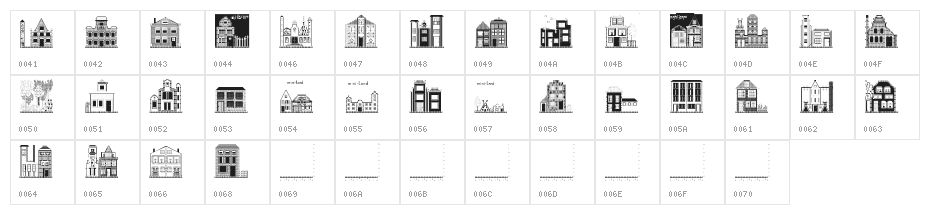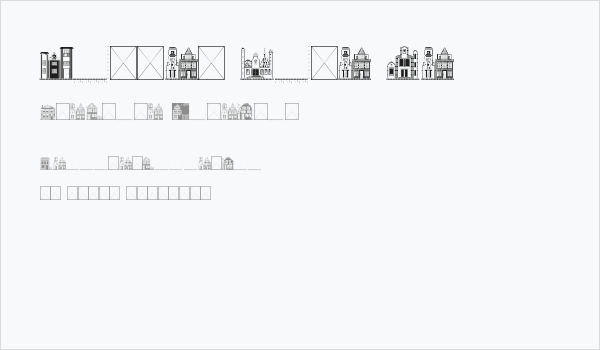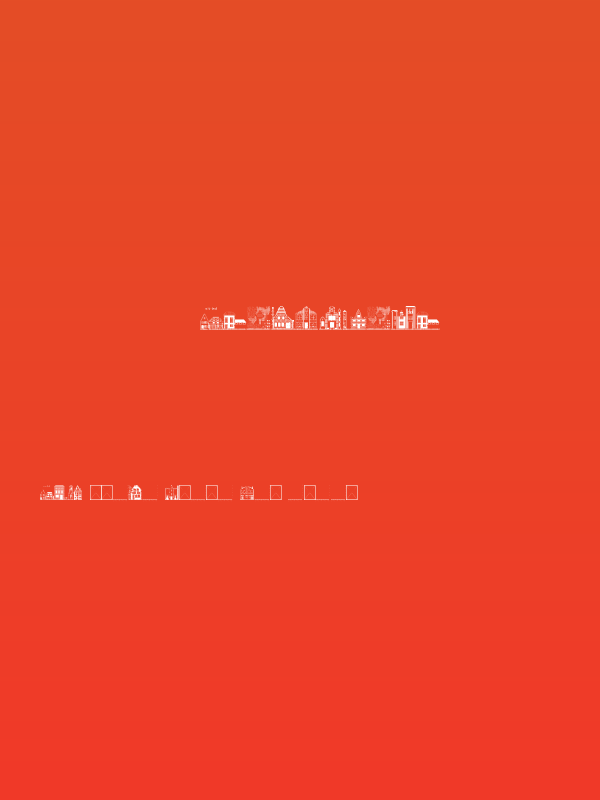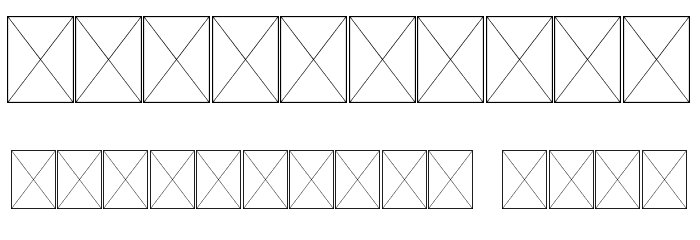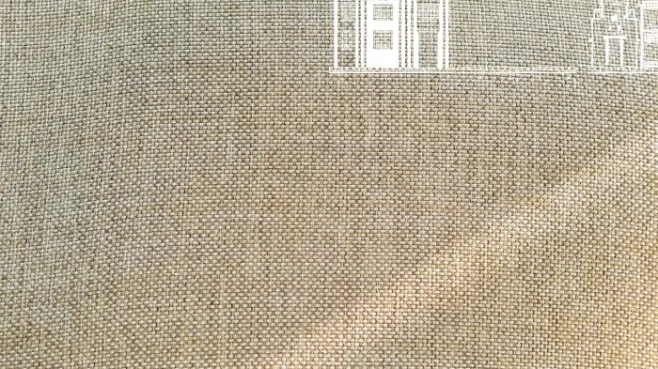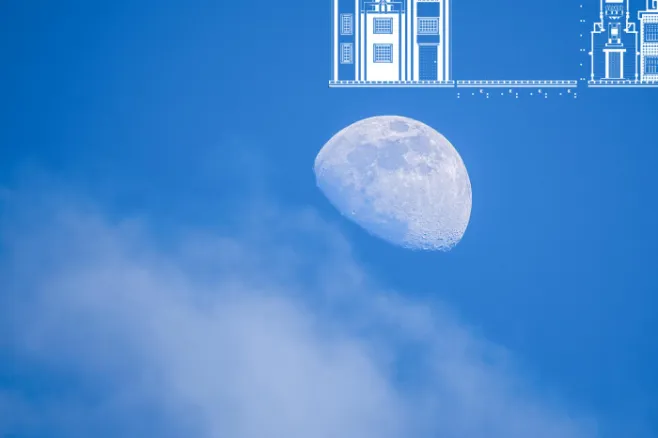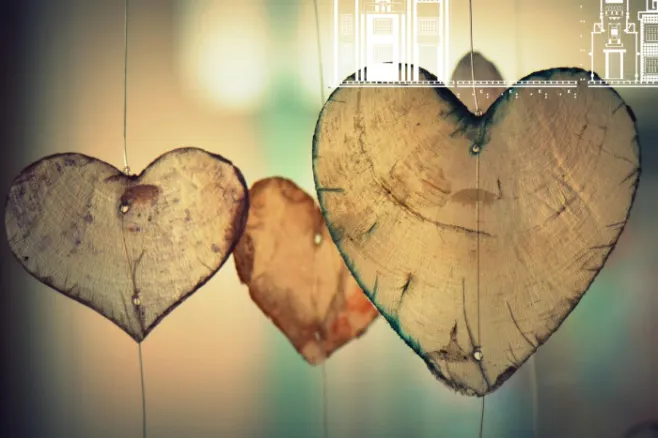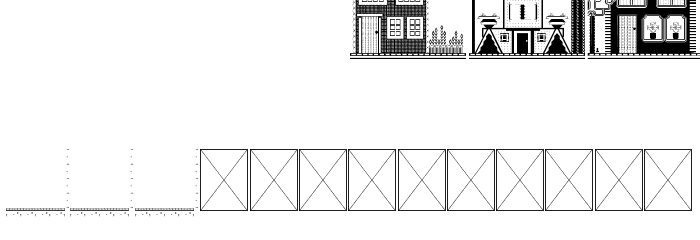
Houses Five Regular Font
Houses Five Regular Description
A highly decorative and illustrative font featuring detailed drawings of various houses, buildings, and architectural elements in a pixel-art style. Each character is represented by a unique building or structure, making it more of a pictorial or dingbat font rather than a traditional alphanumeric typeface.
| Overall Style | Decorative, Illustrative, Playful |
| Use Case | Decorative elements, Themed graphics, Borders, Not suitable for body text or headlines. |
| Proposed Projects | Children’s books, architectural presentations, themed posters, creative invitations, educational materials, cityscape designs. |